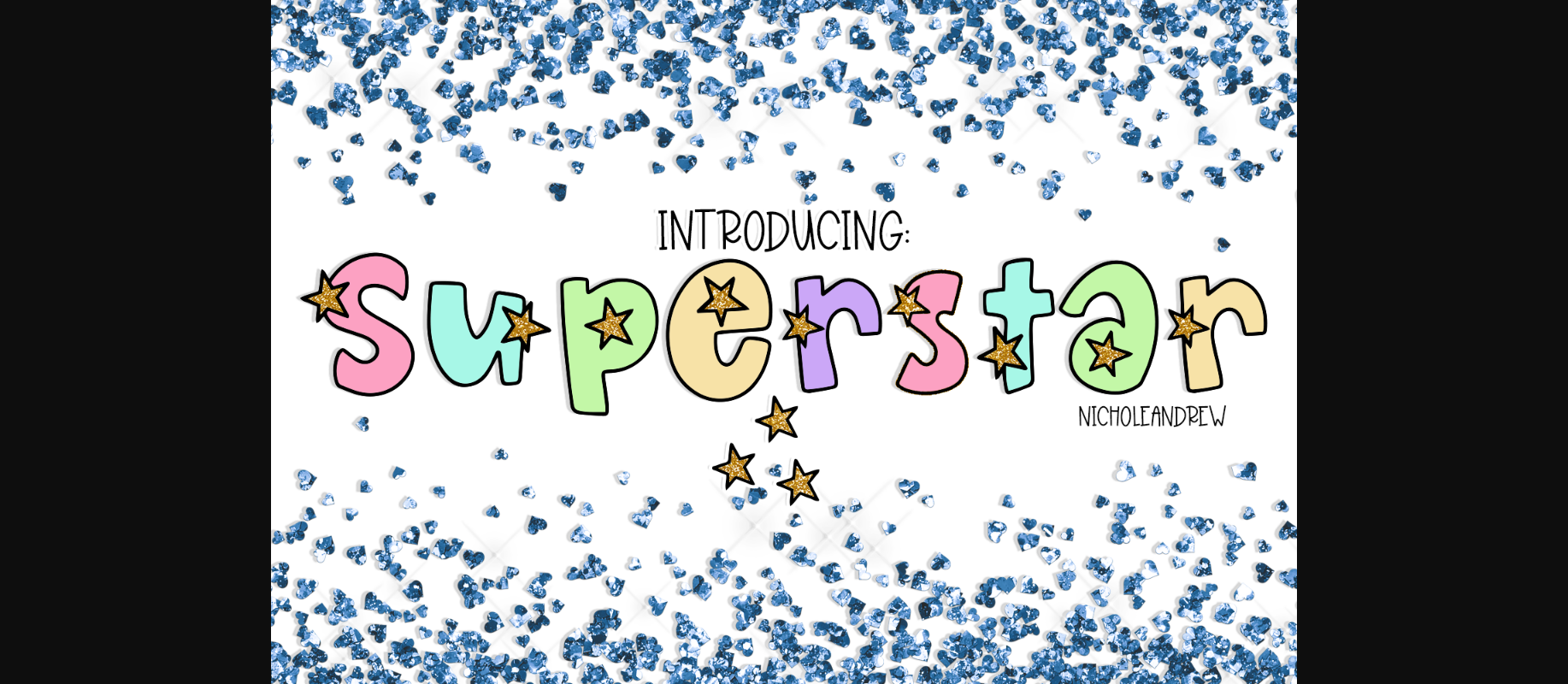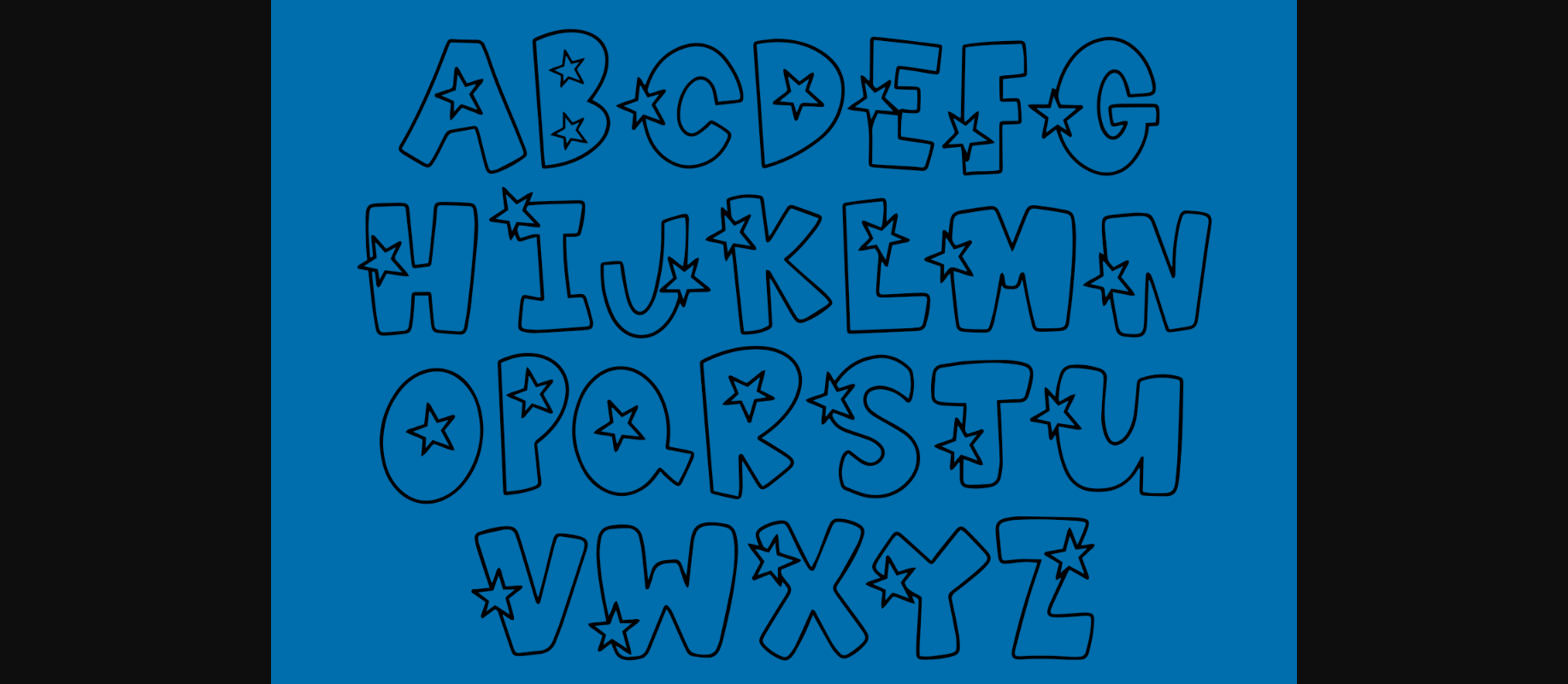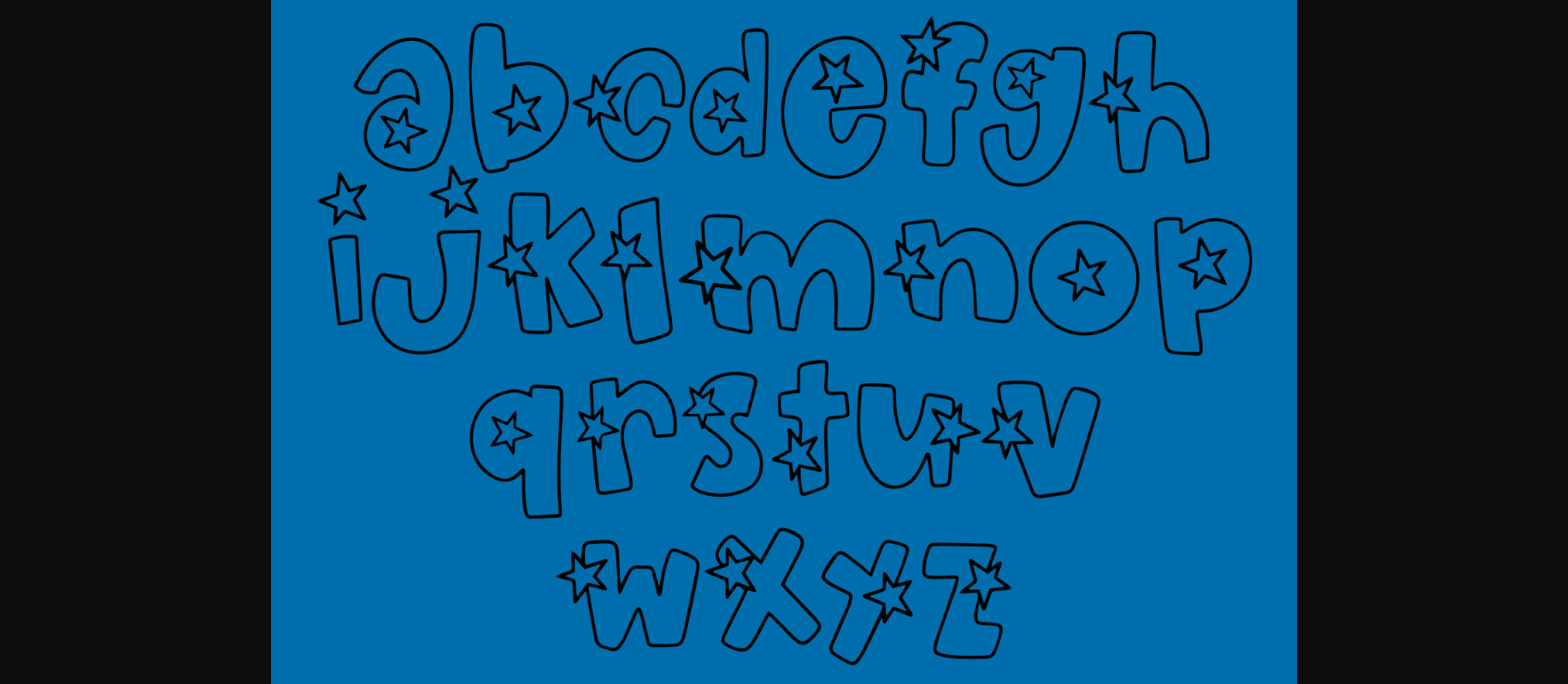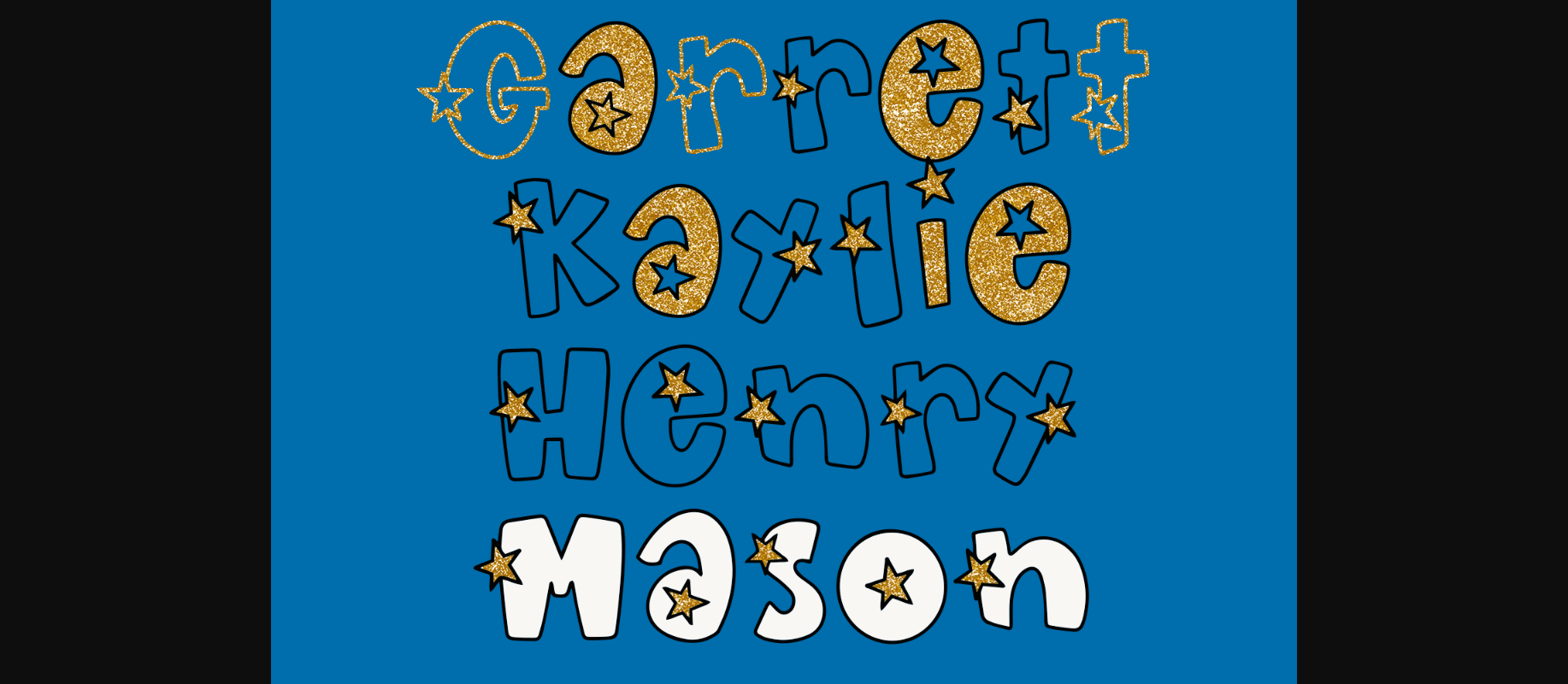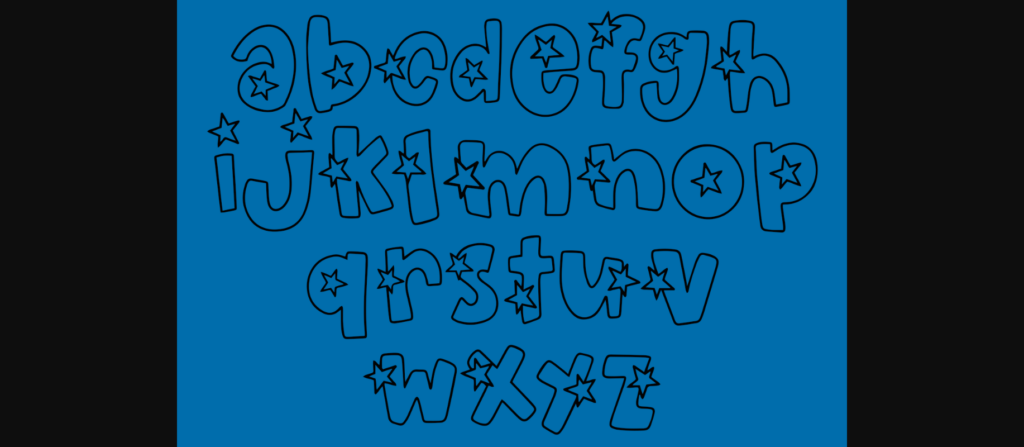
Superstar is a wonderful decorative font perfect for the 4th of July projects or any other design you wish to create. Add it to your most creative ideas and its sparkle will catch everyone’s attention!